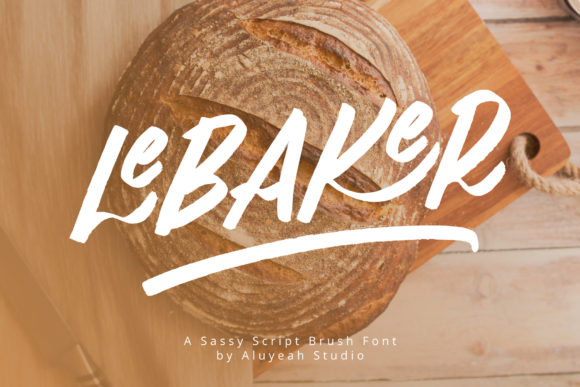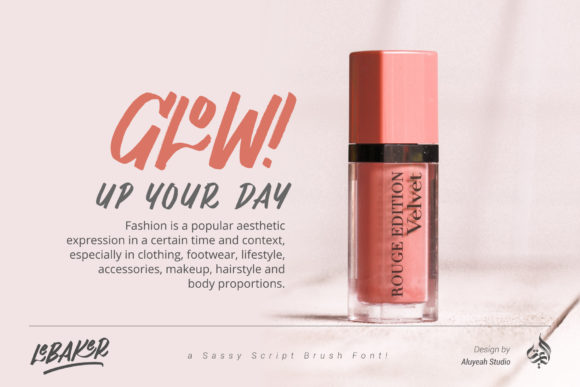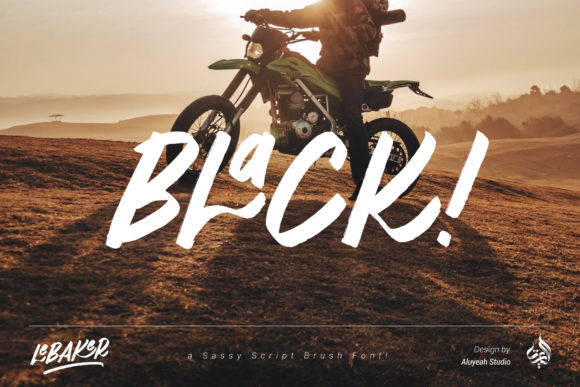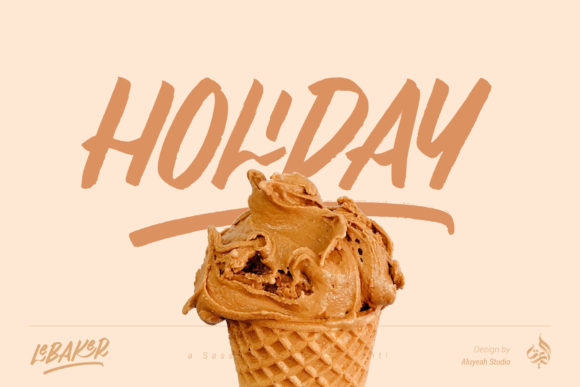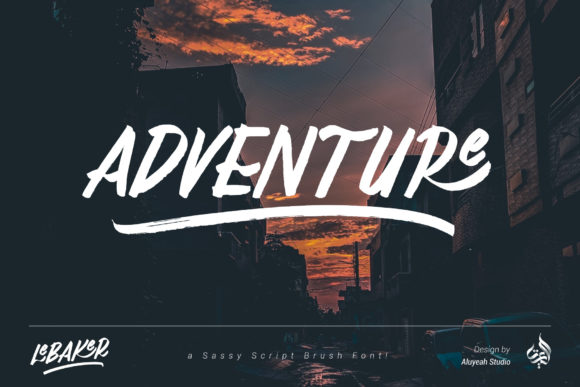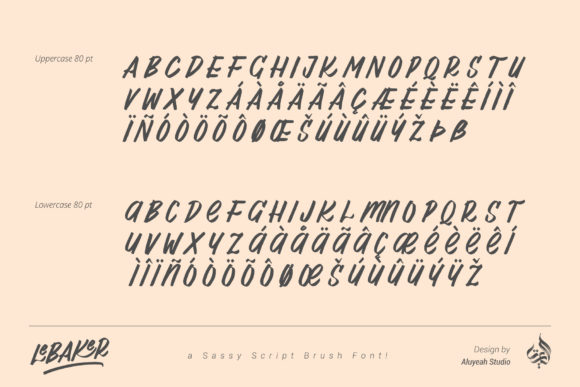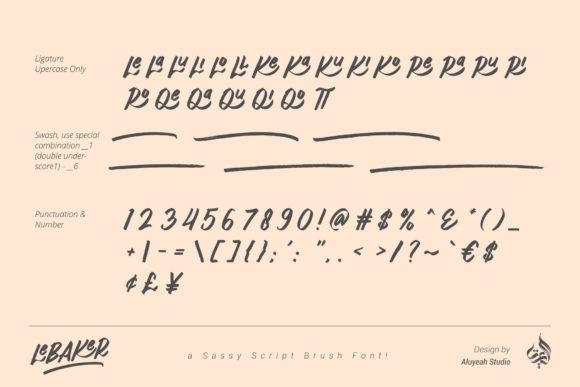
AL LeBaker Font
LeBaker a sassy script brush font! It’s allowing you to create authentic handwriting and comes with dynamic ligatures that give it a special touch.